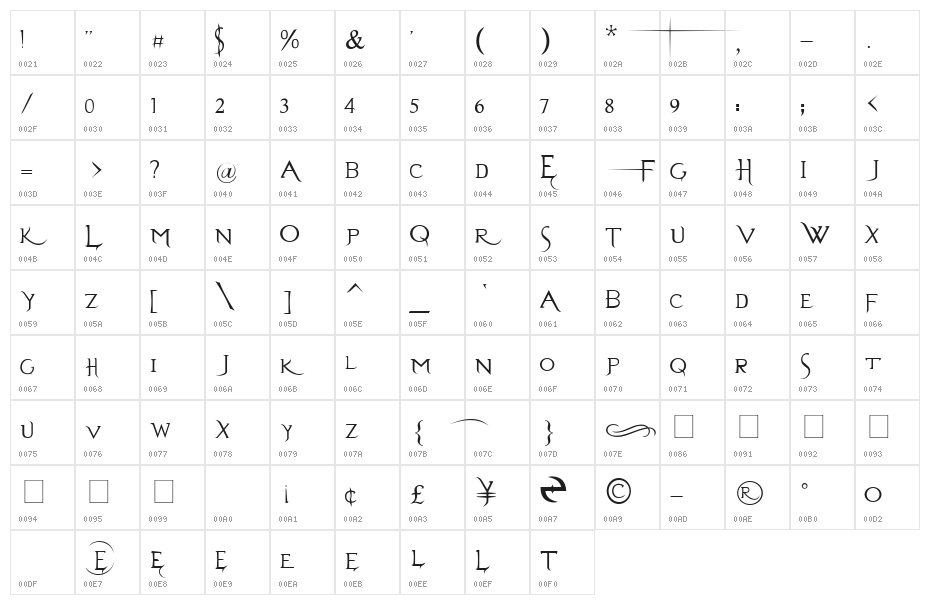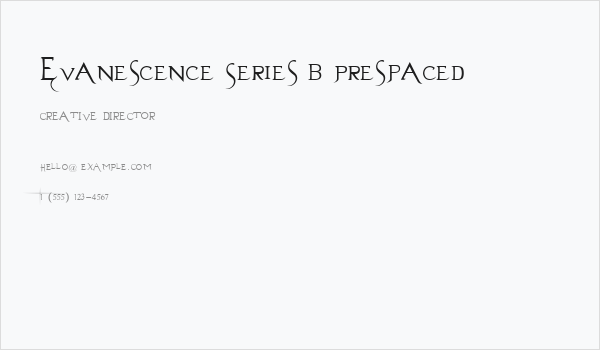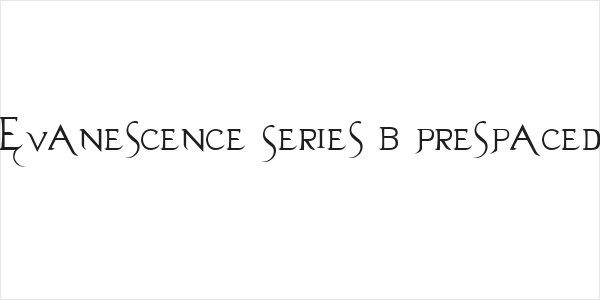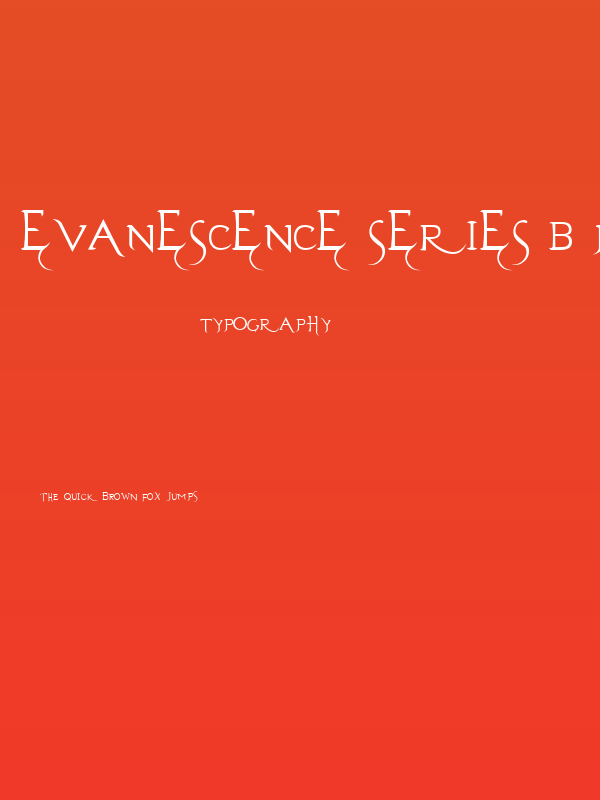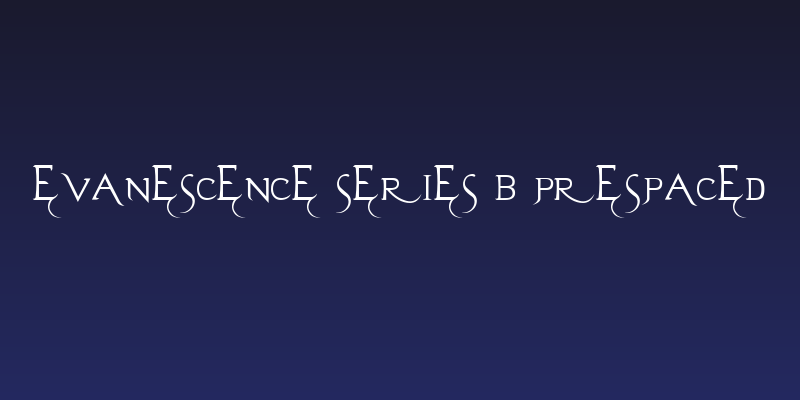
Evanescence Series B Prespaced Font
Evanescence Series B Prespaced Description
This font features a unique blend of elegance and mystique, characterized by its sharp, angular serifs and flowing curves. The uppercase letters exhibit a dramatic flair with elongated strokes and pointed edges, creating a sense of movement and energy. The lowercase letters maintain a consistent style, with a slightly more subdued appearance that complements the uppercase. Numbers are clear and distinct, while special characters retain the font's signature style. The overall design is reminiscent of medieval or fantasy themes, making it ideal for projects that require a touch of the dramatic or the mystical.
| Proposed Projects | Perfect for book covers, movie posters, fantasy-themed events, or branding that requires a mystical touch. |